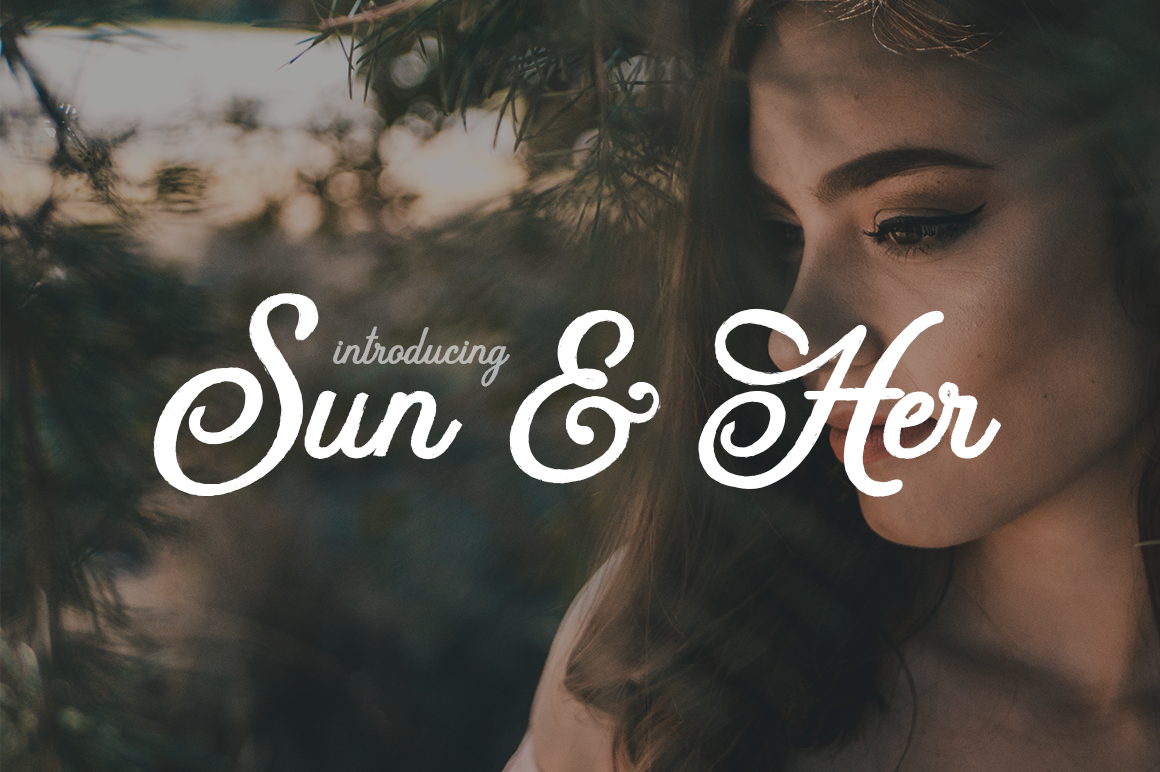
Sun Her Font: Luxurious Script for Handmade Branding
I was staring at a blank candle label template late last night, trying to find that perfect balance between artisanal charm and high-end luxury. The product smelled of warm amber and sandalwood, but every standard script font I tested felt either too rigid or too messy. Then I loaded Sun Her into my design software, and the mood instantly shifted. As a gorgeous, new rough script font that is perfect for a wide range of uses like branding, logotype, and social media, this typeface captured exactly the relaxed, luxurious feel I needed for my small batch collection. It wasn't just text on a screen; it looked like hand-painted lettering that had been perfected over years of practice. For fellow makers and printable creators, finding a font that bridges the gap between rustic authenticity and boutique elegance is a game-changer for product presentation.
Sun Her Rough Script Font for Candle Labels and Product Packaging
When designing physical products, Sun Her stands out among Script Handwritten Fonts because of its unique texture that translates beautifully to print and packaging materials. In my recent candle labeling project, the rough edges of the letterforms added an immediate sense of tactile quality that smooth, digital scripts often lack. This visual texture suggests human touch, which is exactly what customers look for when buying handmade goods. I used Sun Her for the scent name "Amber & Sage," and the varying stroke width created a natural hierarchy without needing additional graphic elements. The font’s stunning appearance elevated the perceived value of the jar, making it look like something you’d find in a high-end spa rather than a craft fair table.
For packaging design specifically, readability at smaller sizes is crucial, and this is where Sun Her proves its versatility. While some display fonts lose their character when scaled down for 2x2 inch labels, Sun Her maintains its integrity. I tested it on matte vinyl stickers and textured kraft paper tags, and the rough details remained crisp without bleeding or looking pixelated. This makes it an excellent choice for:
The relaxed nature of the script allows it to curve slightly around cylindrical containers without looking distorted, a common issue with stiffer calligraphy fonts. When pairing it with other typography for mandatory compliance text or ingredient lists, I found that a clean, minimalist sans serif font creates the perfect contrast. The combination of Sun Her’s organic flow with structured supporting text reinforces a professional brand identity while keeping the handmade heart of the product visible.
Using Sun Her for Wedding Stationery and Elegant Event Signage
Creating wedding invitations requires a delicate touch, and Sun Her offers a modern alternative to traditional formal scripts within the category of Fonts. I recently mocked up a welcome sign for an outdoor garden wedding, and the font’s luxurious yet laid-back personality perfectly matched the venue's boho-chic aesthetic. Unlike stiff copperplate styles that can feel intimidating, Sun Her feels welcoming and intimate, setting the right emotional tone for guests before they even arrive. Its rough texture photographs exceptionally well on acrylic signs and wood boards, catching light in a way that adds depth to event photography.
For stationery designers working on digital templates or physical prints, this font excels at highlighting key information without overwhelming the layout. I utilized Sun Her for the couple’s names and the "Welcome" header, keeping the date and venue details in a simple serif to ensure legibility from a distance. The font works particularly well for:
1. Wedding welcome boards and easel signage
2. Table numbers and seating chart headers
3. Menu cards and bar signage
4. Save-the-dates and invitation suite envelopes
One practical consideration for crafters using cutting machines like Cricut or Silhouette is the complexity of the rough edges. While Sun Her is stunning, the textured strokes may require adjusting blade depth or pressure settings when cutting vinyl or cardstock. I recommend doing a test cut on scrap material first to ensure the intricate details don't tear. For printed stationery, however, there are no such limitations, and the font renders beautifully on linen cardstock and cotton paper. The commercial licensing flexibility also means you can confidently use it for client work, ensuring your wedding stationery business can offer this distinctive style without legal concerns.
Sun Her Typography for Social Media Graphics and Digital Printables
In the digital space, Sun Her brings a necessary warmth to screen-based designs, distinguishing it from generic Script Handwritten options available online. As a content creator for my shop, I struggle to make Instagram stories and Pinterest pins feel personal rather than manufactured. Using Sun Her for headlines and overlay text instantly adds that "stunning and relaxed" vibe mentioned in the product description, stopping the scroll effectively. The font’s organic imperfections translate surprisingly well to pixels, preventing designs from looking too sterile or AI-generated in an era where authenticity drives engagement.
For sellers of digital downloads and printable wall art, Sun Her opens up numerous niche opportunities. I designed a set of kitchen conversion charts and nursery affirmations using this typeface, and the result felt like heirloom quality rather than disposable decor. Because the font has a strong personality, it works best as a focal point rather than body text. When creating social media templates or editable Canva-style files for customers, consider these application tips:
The versatility of Sun Her extends to merchandise design as well. I’ve seen similar rough scripts perform well on tote bags and t-shirts because the texture hides minor printing inconsistencies better than smooth lines. Whether you are designing a digital planner cover or a physical enamel pin, the font’s character remains consistent across mediums. Just remember to check the specific file formats included—OTF and TTF are standard for desktop publishing, but having SVG versions can save hours of tracing time for vector-based projects.